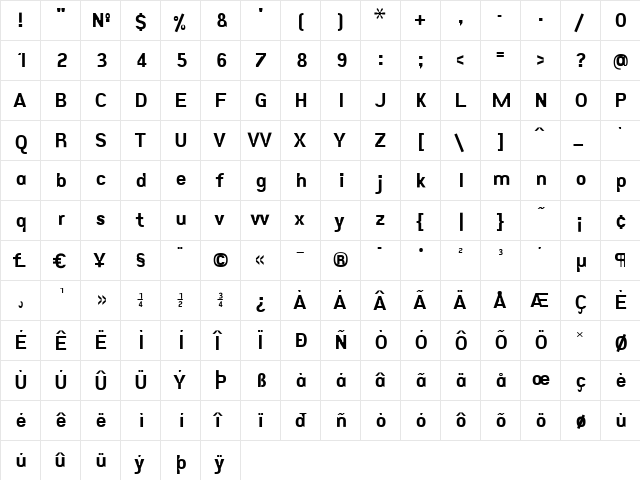
Eunuverse Bold
| Foundry | Eunuverse by Barry Deck. \ Barry Deck. Published by Thirstype |
Design Context for Eunuverse Typeface
Eunuverse takes a measured approach to typography — its balanced proportions and neutral character make it a reliable workhorse for both digital and print work. Its bold stroke weight gives it real presence on the page.